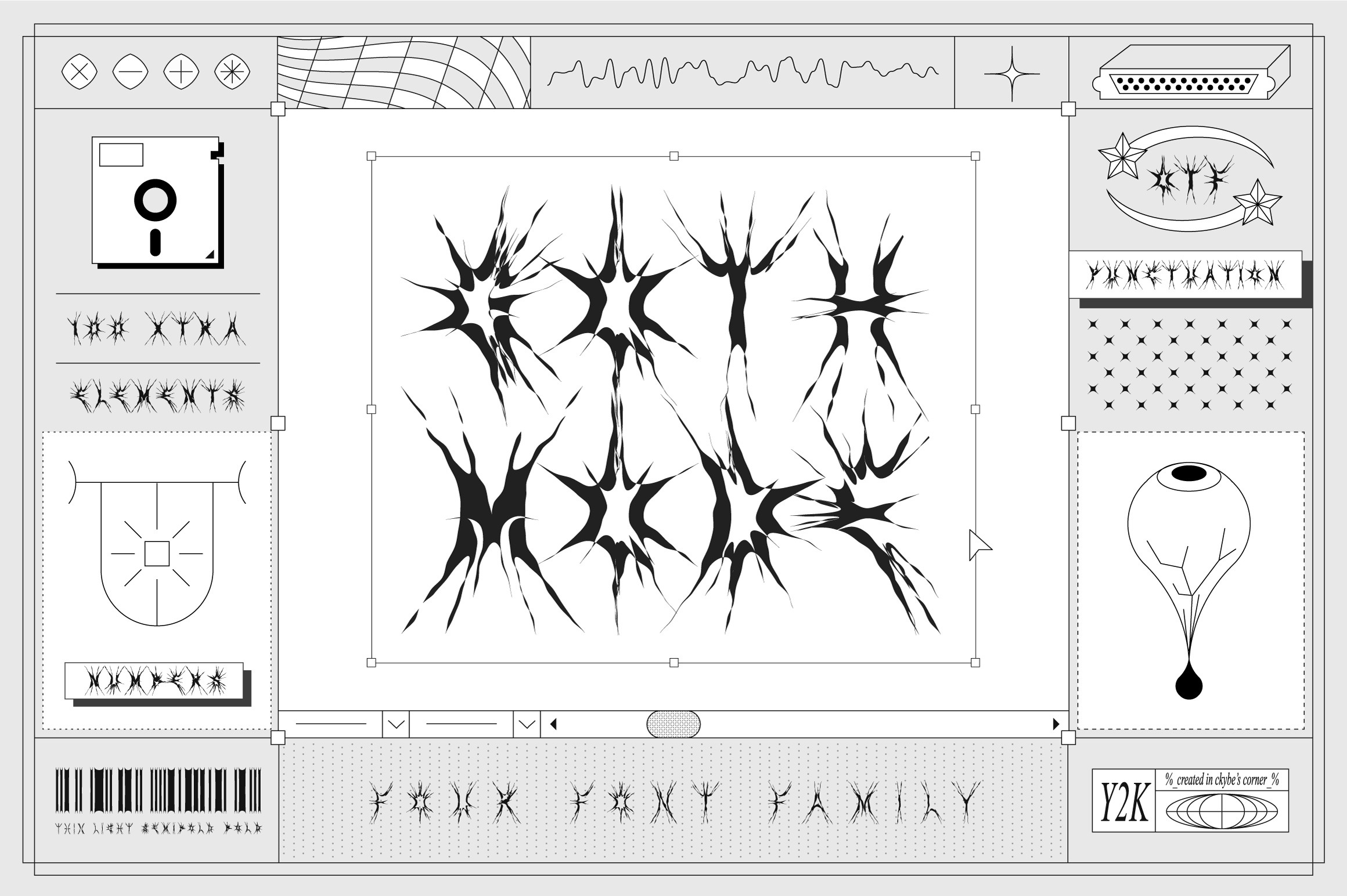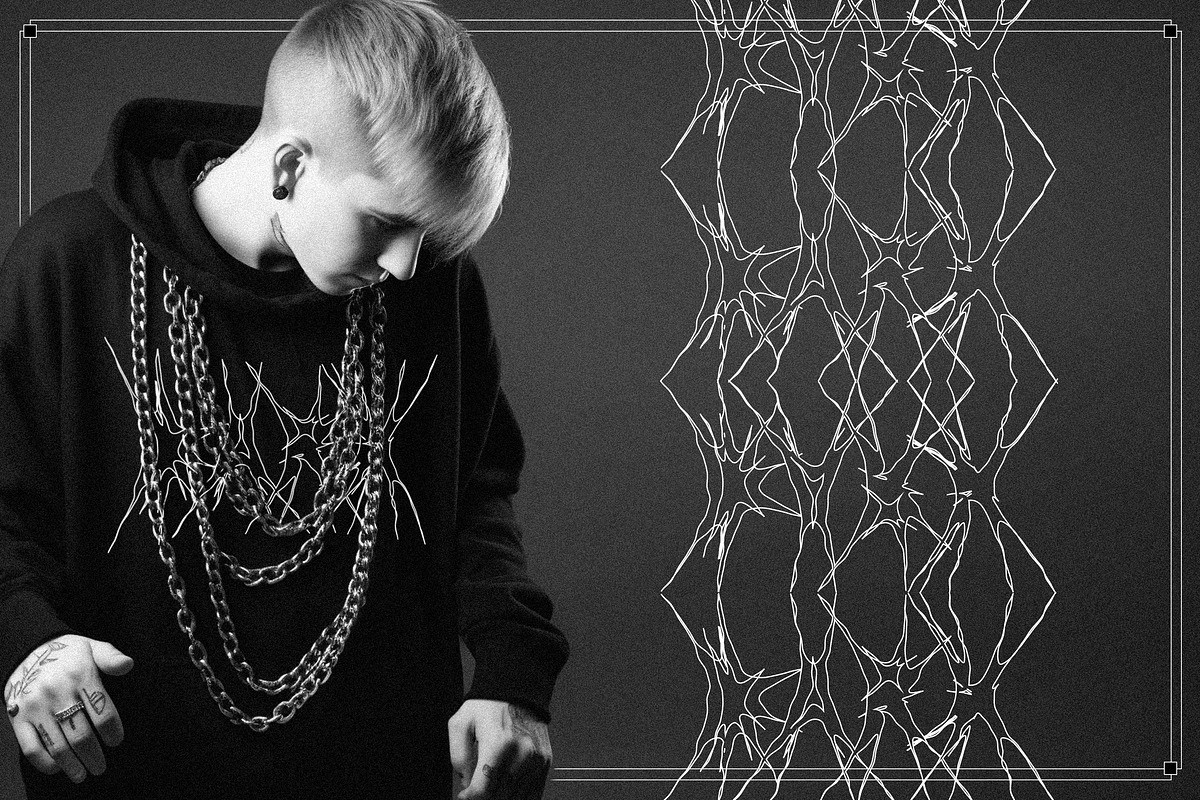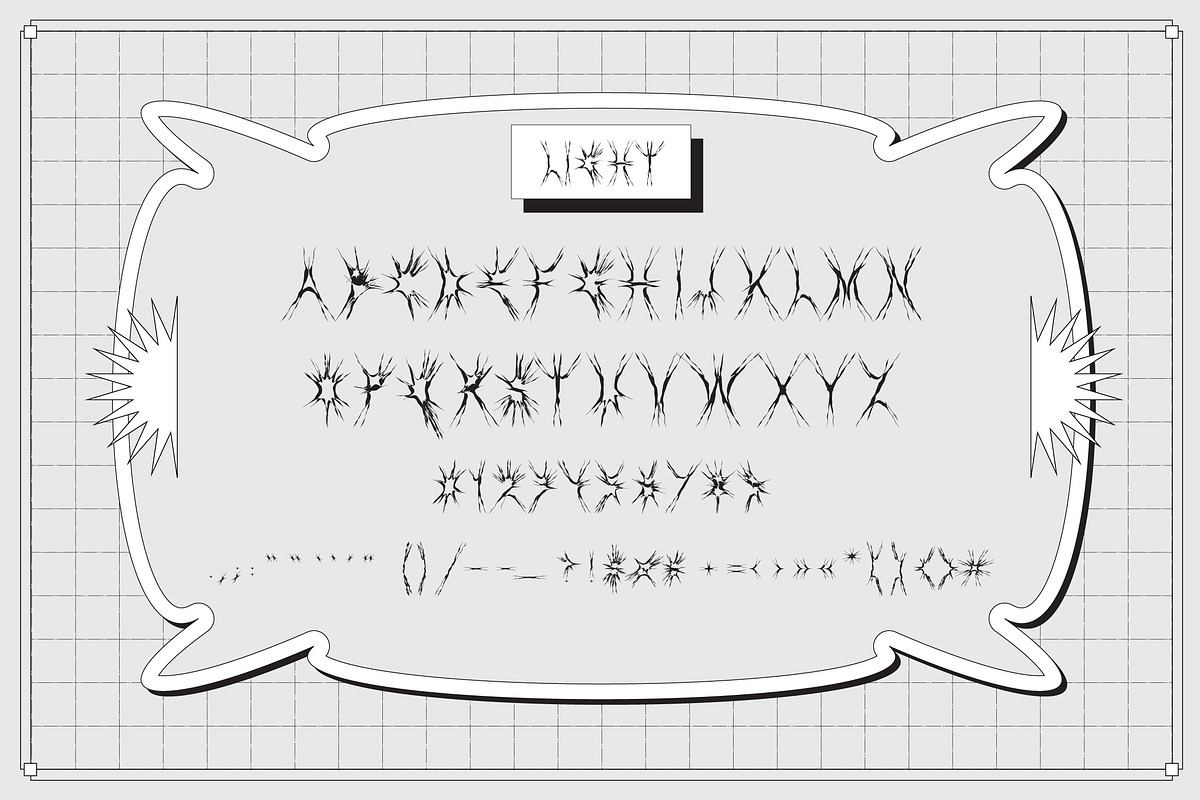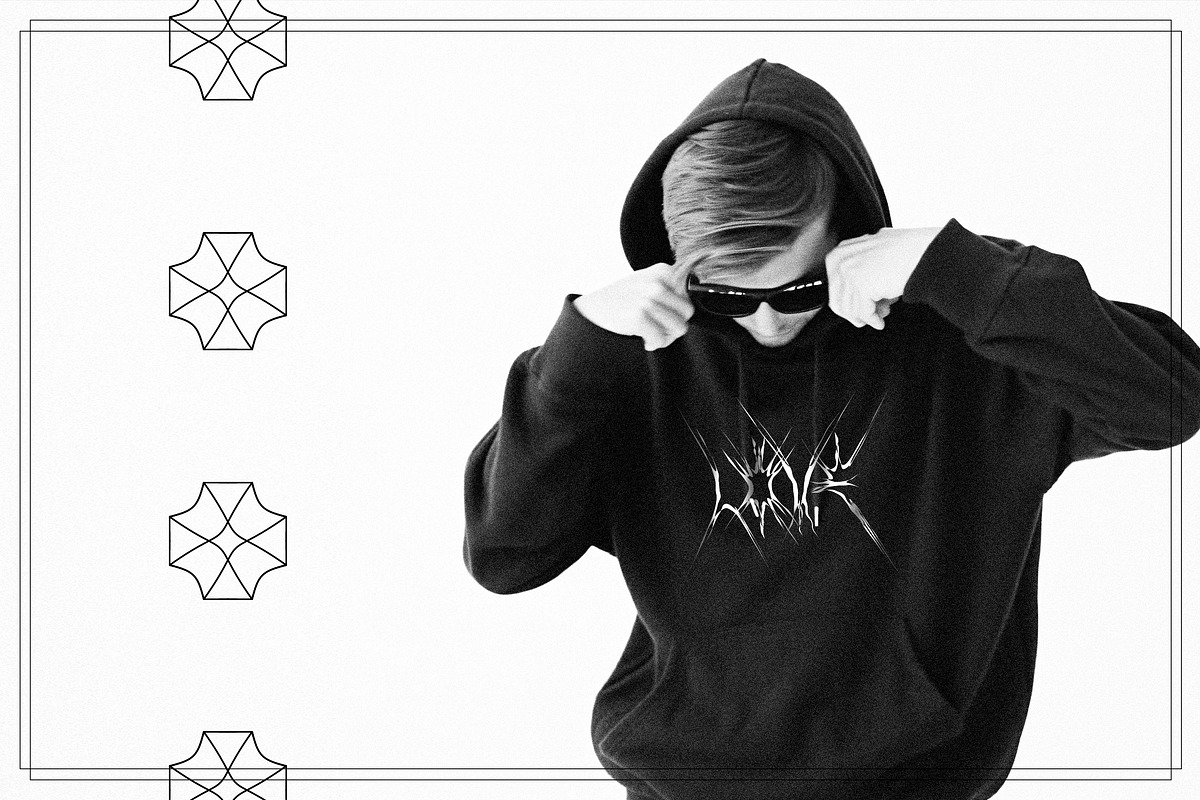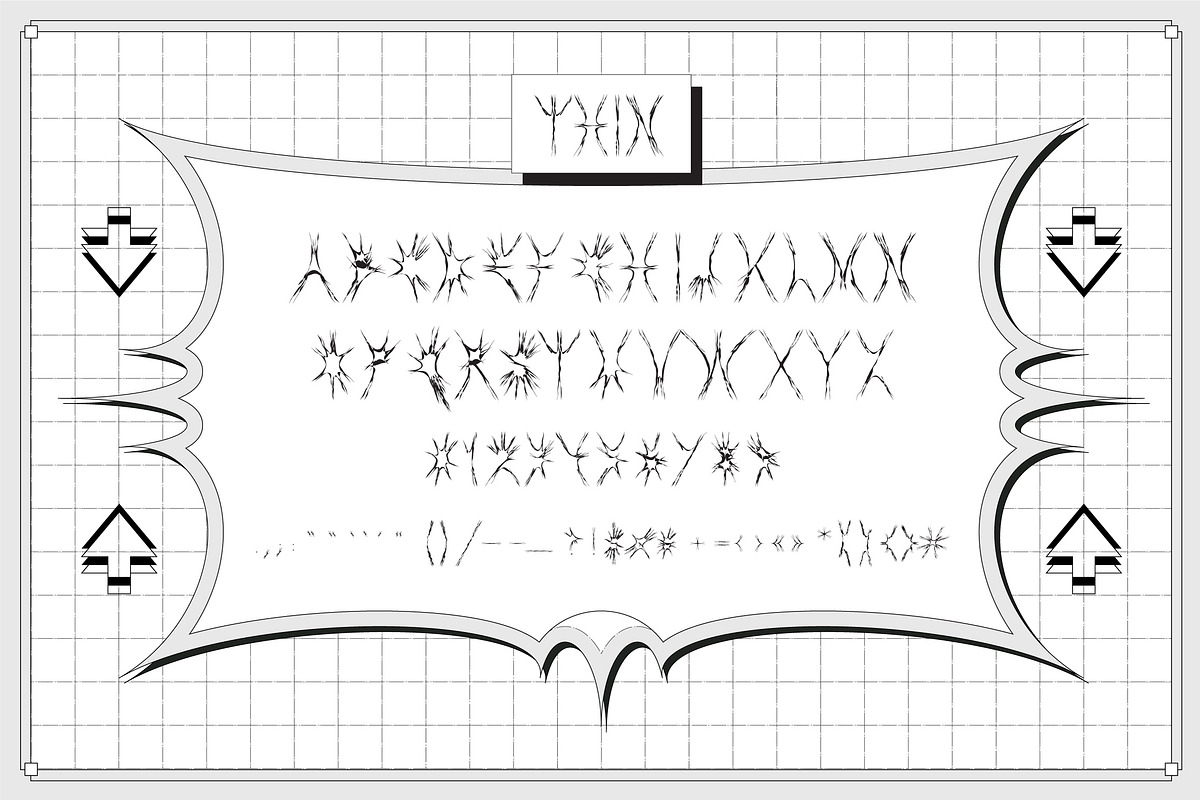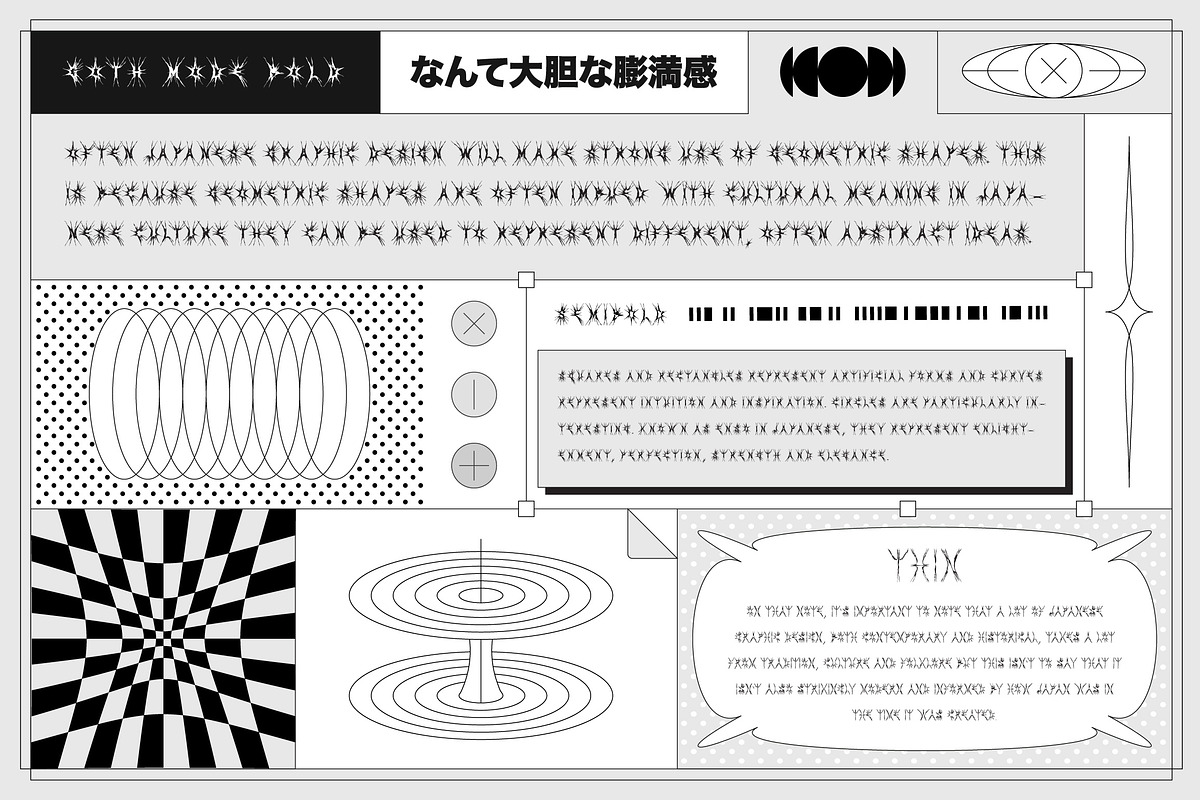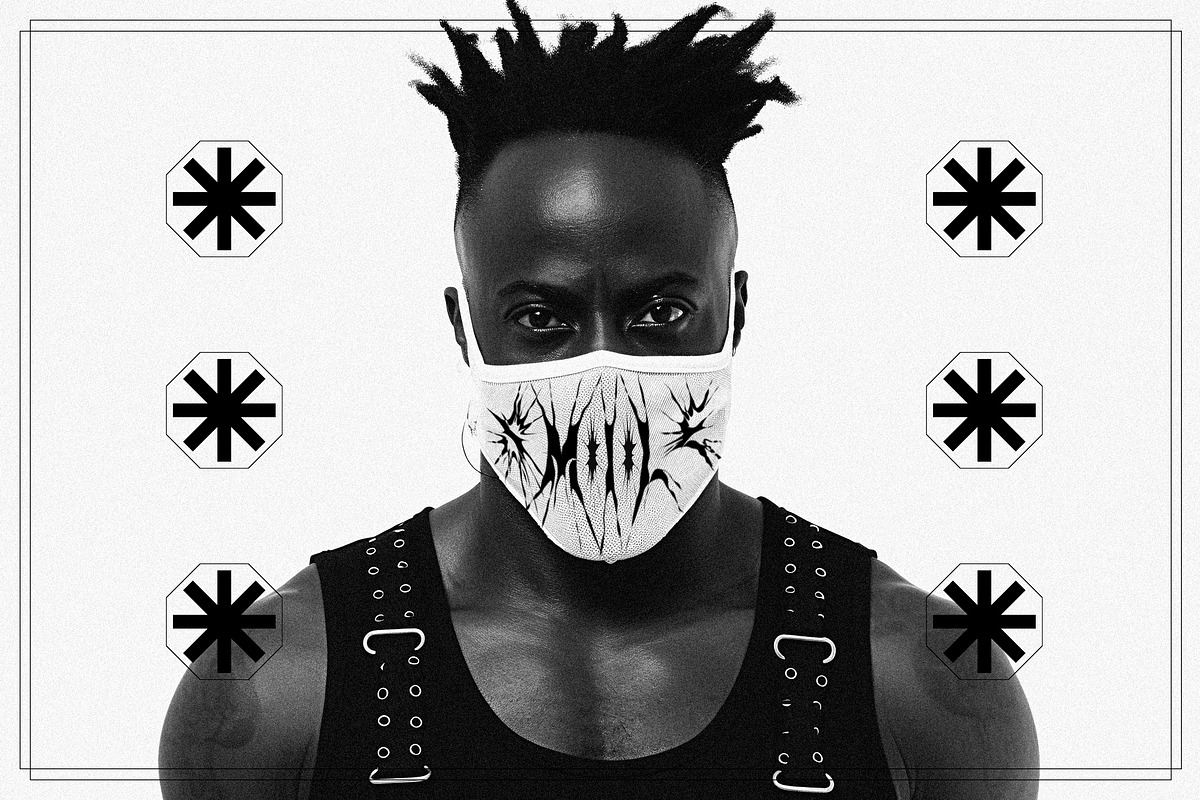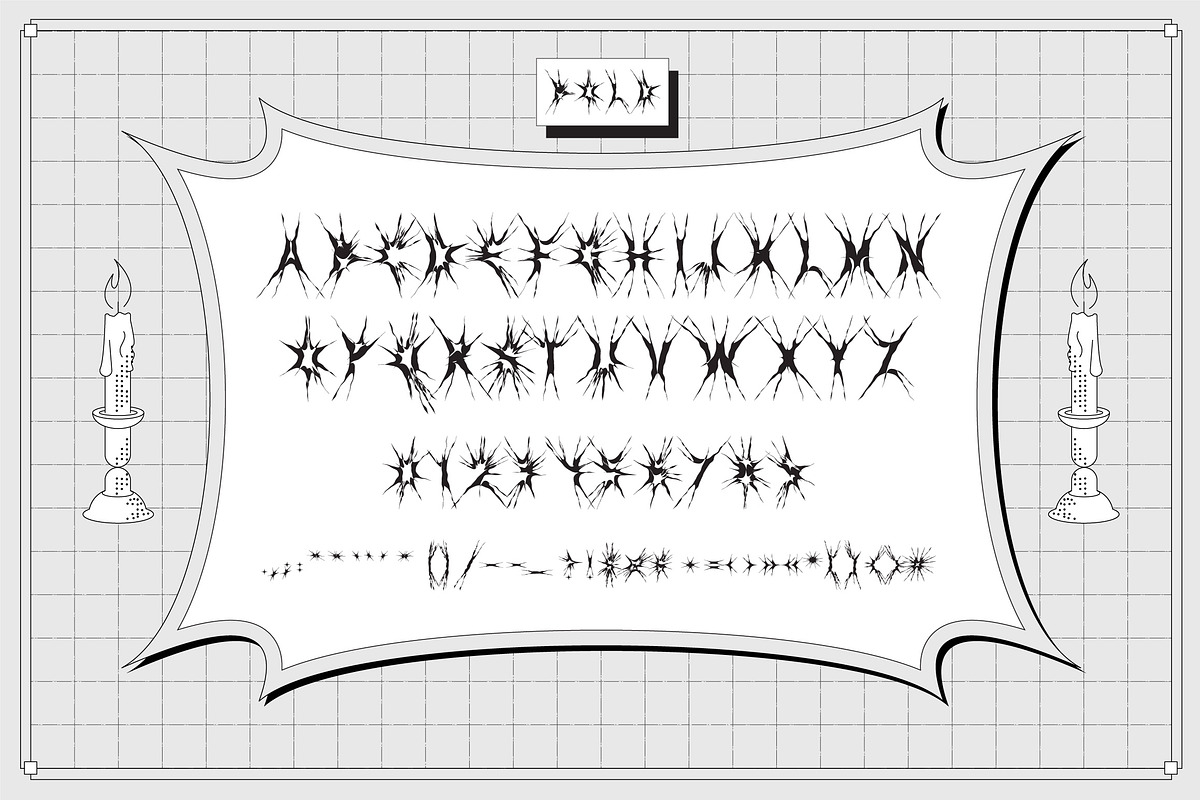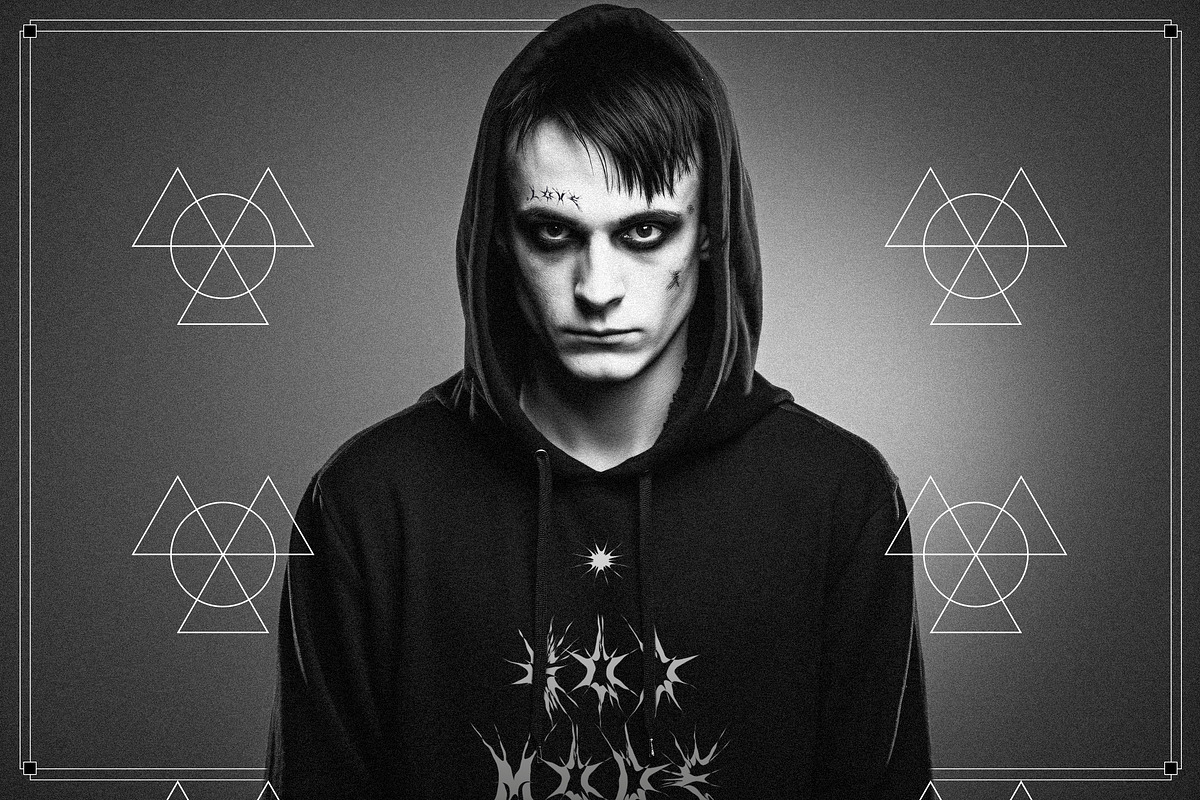
GOTH MODE | Dark Y2K Font Family
Introducing GOTH MODE: Dark Y2K Font Family
Get ready to embrace the nostalgia of the early 2000s with our GOTH MODE font family. This trendy typeface is the perfect fusion of vintage Y2K aesthetics and a dark, edgy style, making it ideal for all your creative projects that demand a hint of cyberpunk allure.
The font's dark and mysterious appearance adds an element of intrigue to your designs. Whether it's for a textile print, social media post, or death metal album cover, GOTH MODE sets the mood perfectly.
100 Bonus Vector Elements: Elevate your design game with an exclusive bonus! Along with the font family, you'll receive 100 additional vector elements. These elements are specially crafted to complement GOTH MODE, making it easier than ever to create stunning visuals.